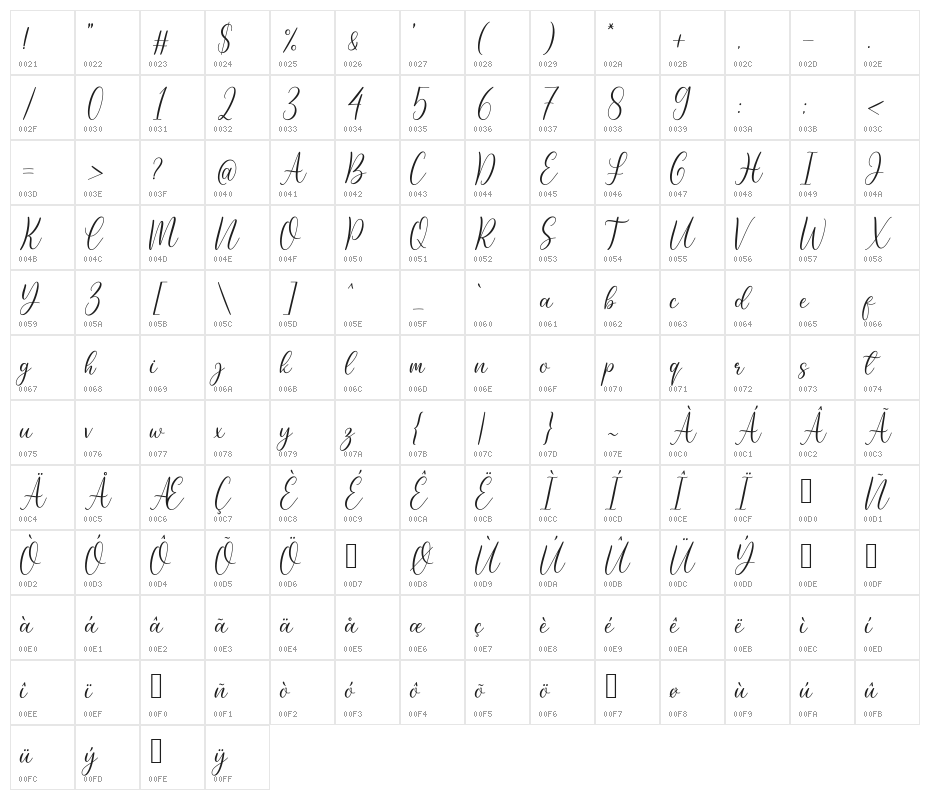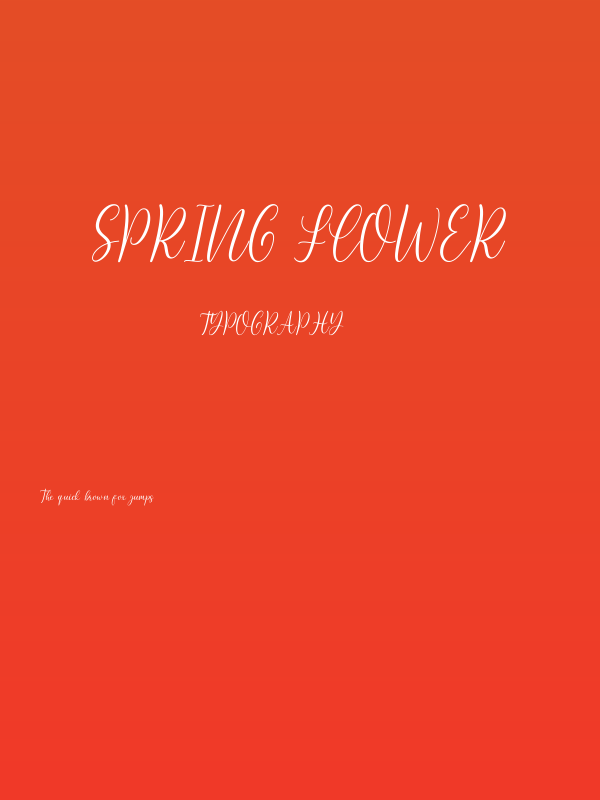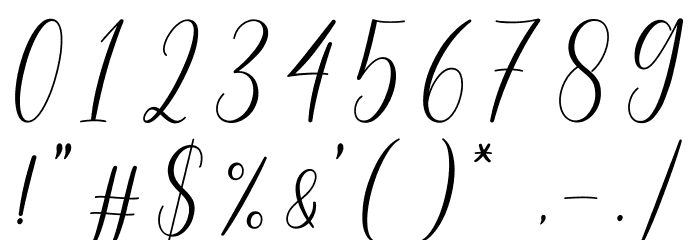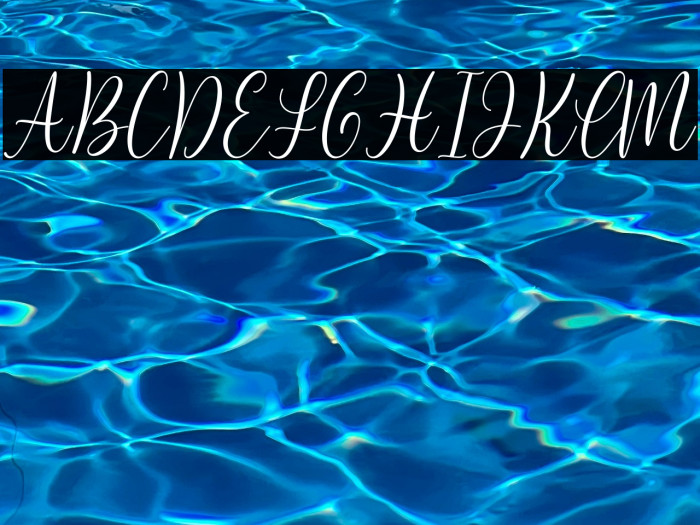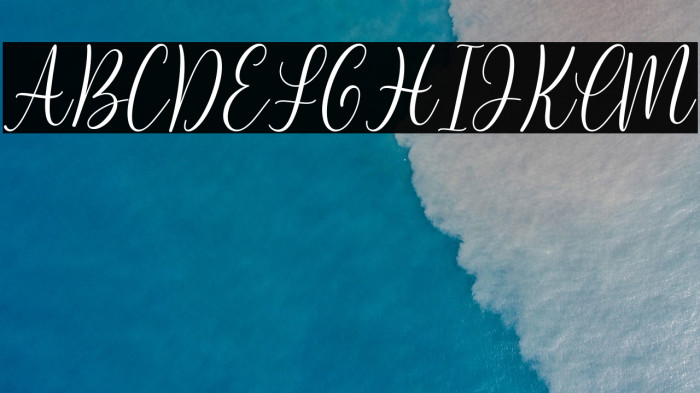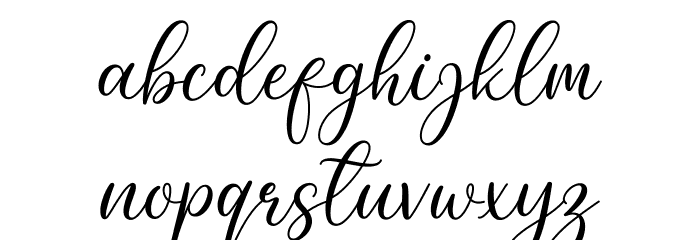
Spring Flower Font
Spring Flower Description
This elegant script font features flowing, cursive strokes that convey a sense of grace and sophistication. The uppercase letters are tall and slender, with sweeping curves and delicate loops, while the lowercase letters maintain a consistent fluidity, enhancing readability. The numerals are styled to match the overall aesthetic, with a slight slant and gentle curves. Special characters are seamlessly integrated, maintaining the font's cohesive and stylish appearance. This font is perfect for projects that require a touch of elegance and refinement.
| Proposed Projects | Ideal for wedding invitations, greeting cards, elegant branding, and sophisticated logos. |